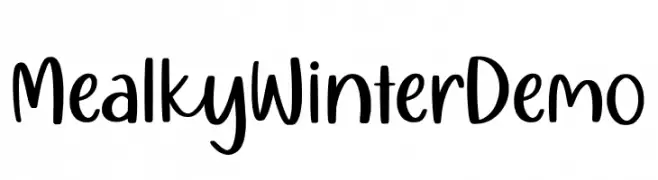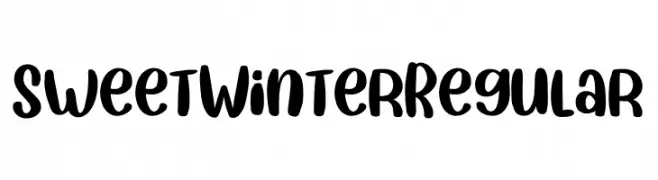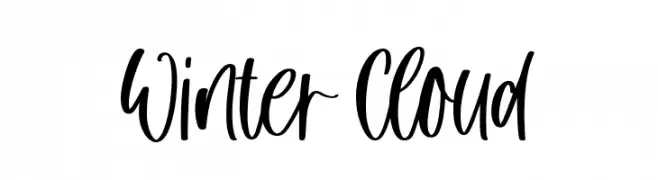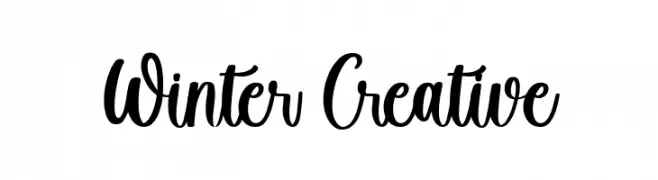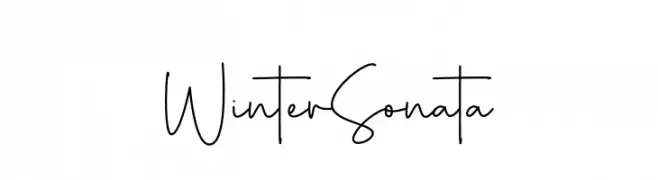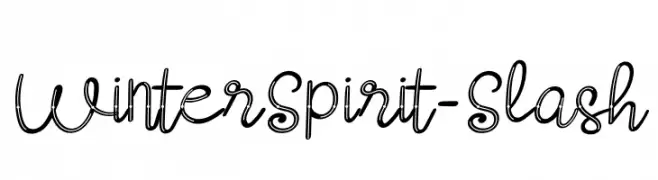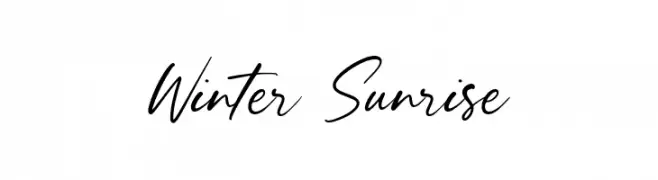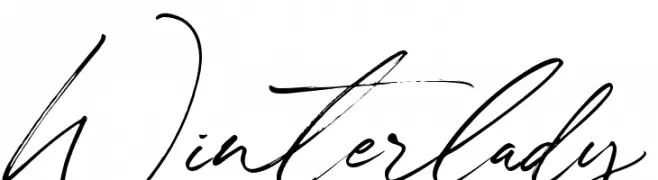
A bold, snow-capped decorative font perfect for winter themes.
A bold, shattered glass effect font with a modern and decorative style.
A bold, geometric font with a modern, decorative style.
A playful and elegant handwritten script font with graceful loops and curves.
A bold, decorative font with an inline style, offering a modern yet classic look.
A bold serif font with strong strokes and pronounced serifs, offering a modern twist on classic design.
A playful, hand-drawn font with a whimsical and friendly style.
A bold, rugged font with a distressed, graffiti-like appearance.
A playful and elegant handwritten font with fluid strokes and whimsical flair.
A playful, bold font with rounded, dynamic letterforms.
A whimsical and playful script font with flowing curves and loops.
A playful, winter-themed decorative font with snow-capped characters.
A playful and bold font with dynamic curves and angles.
A playful, decorative font with bold uppercase letters enclosed in circular shapes.
A playful, whimsical font with tall, narrow letters and smooth, rounded strokes.
A playful and elegant handwritten script font with dynamic curves.
A playful, bold handwritten font with smooth, rounded edges.
A whimsical, elegant cursive font with flowing, artistic strokes.
A flowing, cursive script font with elegant loops and swashes.
A bold, playful font with a whimsical, hand-drawn style.
A playful, modern font with rounded, elongated letterforms and consistent stroke width.
A modern, handwritten font with fluid, dynamic strokes.
A playful, bold font with rounded, exaggerated curves and a whimsical style.
A flowing, cursive font with elegant, sweeping strokes and a handwritten appearance.
A playful and elegant script font with a modern twist.
A festive, decorative font with ornamented characters perfect for holiday themes.
A whimsical and elegant script font with playful loops and swirls.
A graceful, cursive script font with flowing, connected characters and delicate strokes.
A playful, hand-drawn style with tall, narrow letters and a whimsical feel.